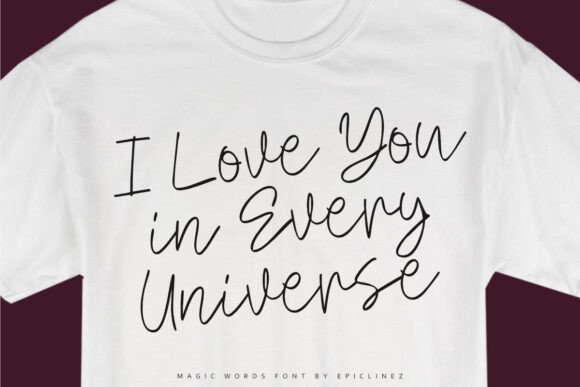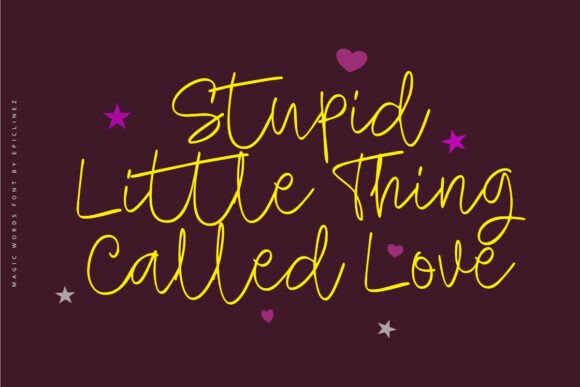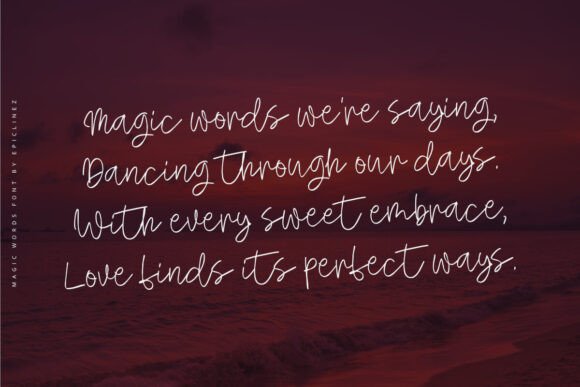
Introduction to Magic Words Font
Introducing Magic Words, an enchanting handwritten script font that seamlessly blends elegance and warmth into every design.
With a sublime suitability for crafting elegant wedding invitations, embedding meaningful quotes, designing captivating posters, or creating unforgettable logotypes, Magic Words adds a touch of delicate sophistication to any creative endeavor .
Key Features of Magic Words Font